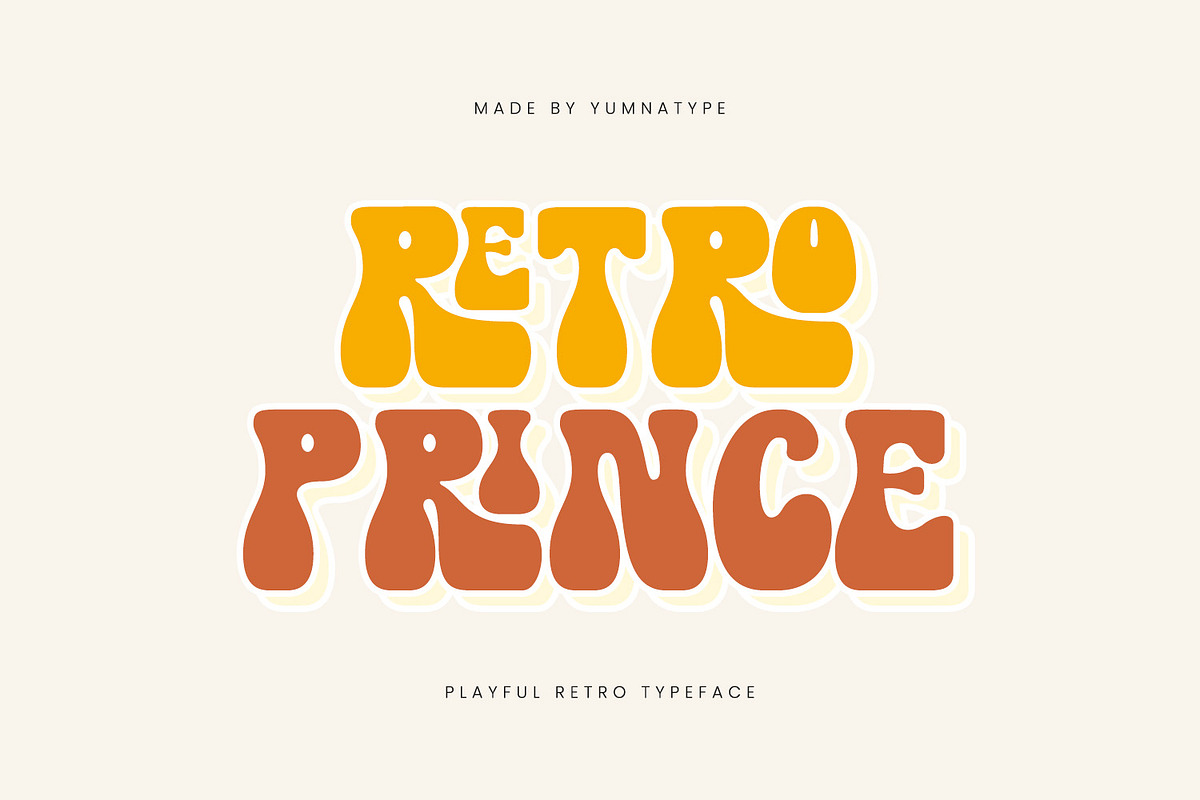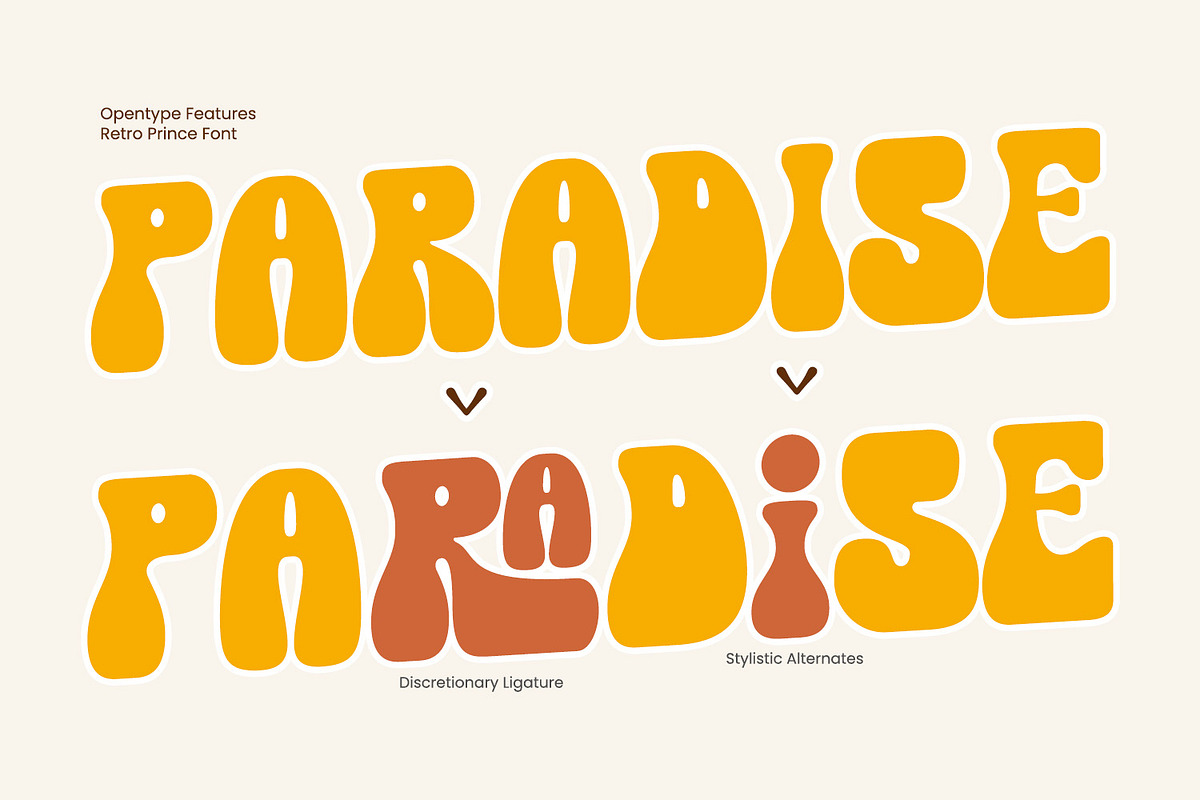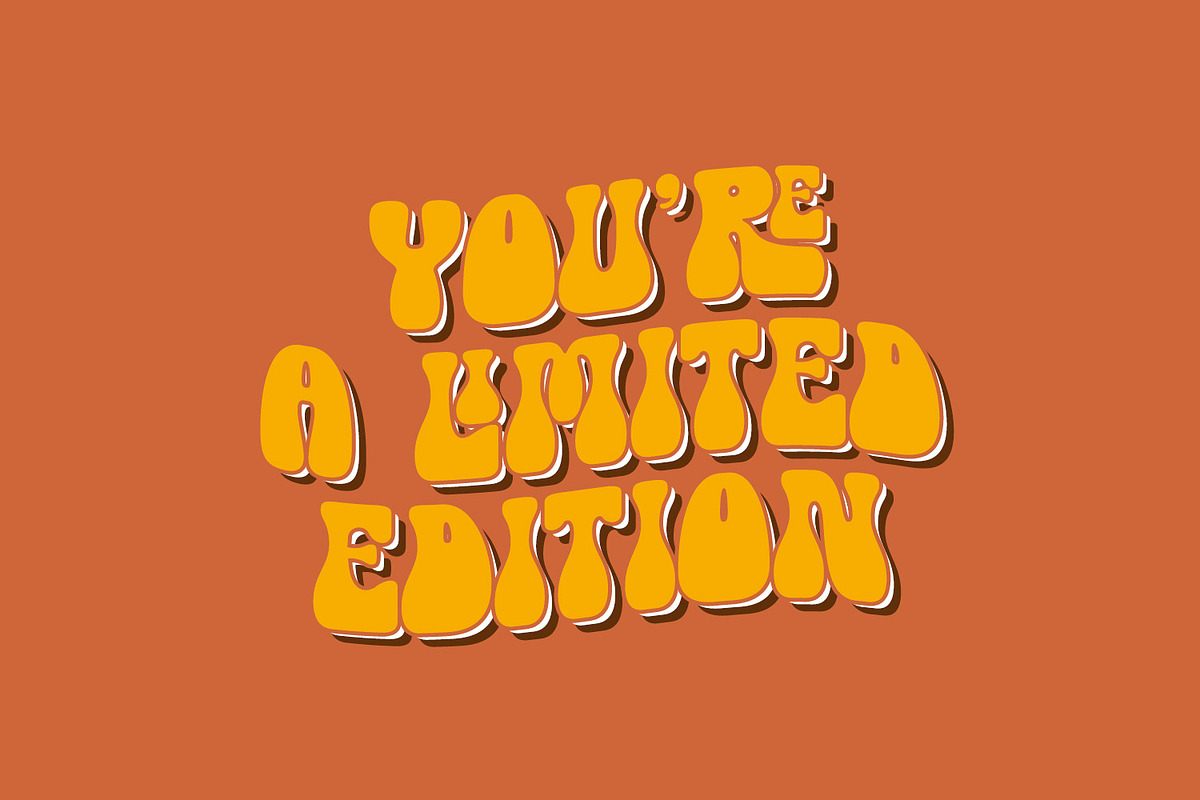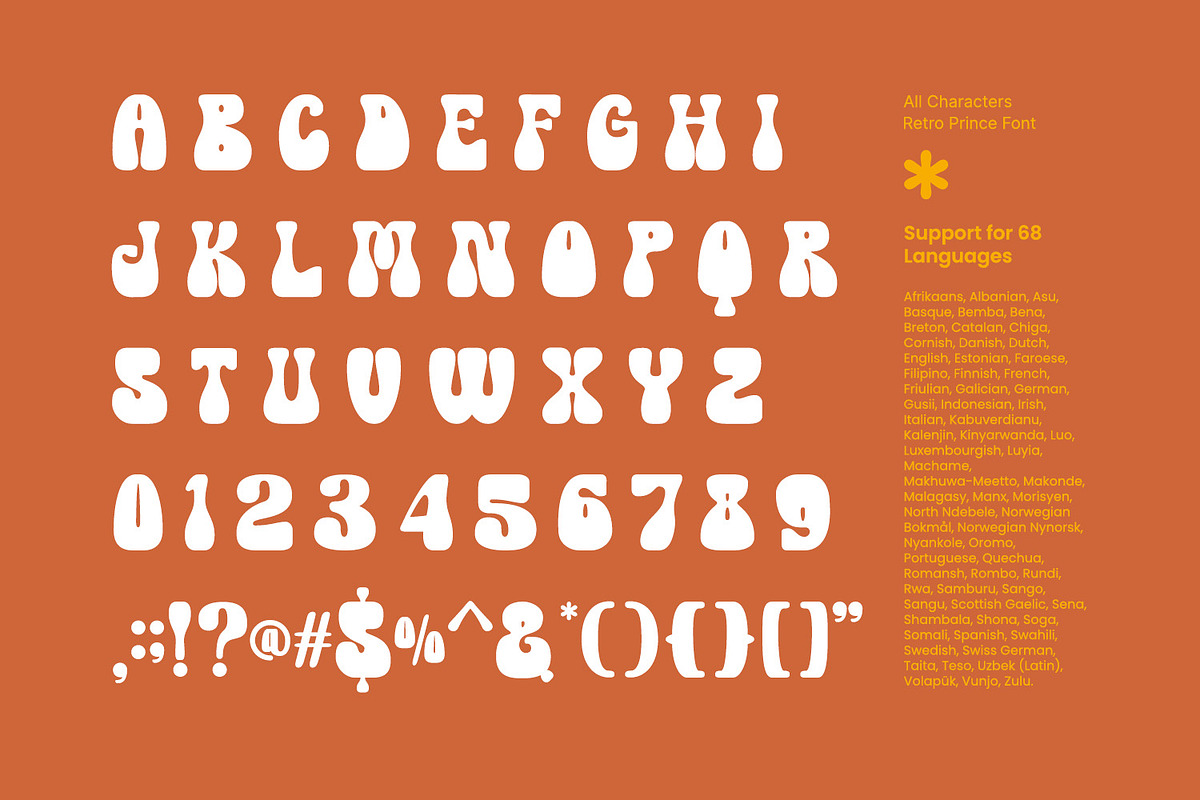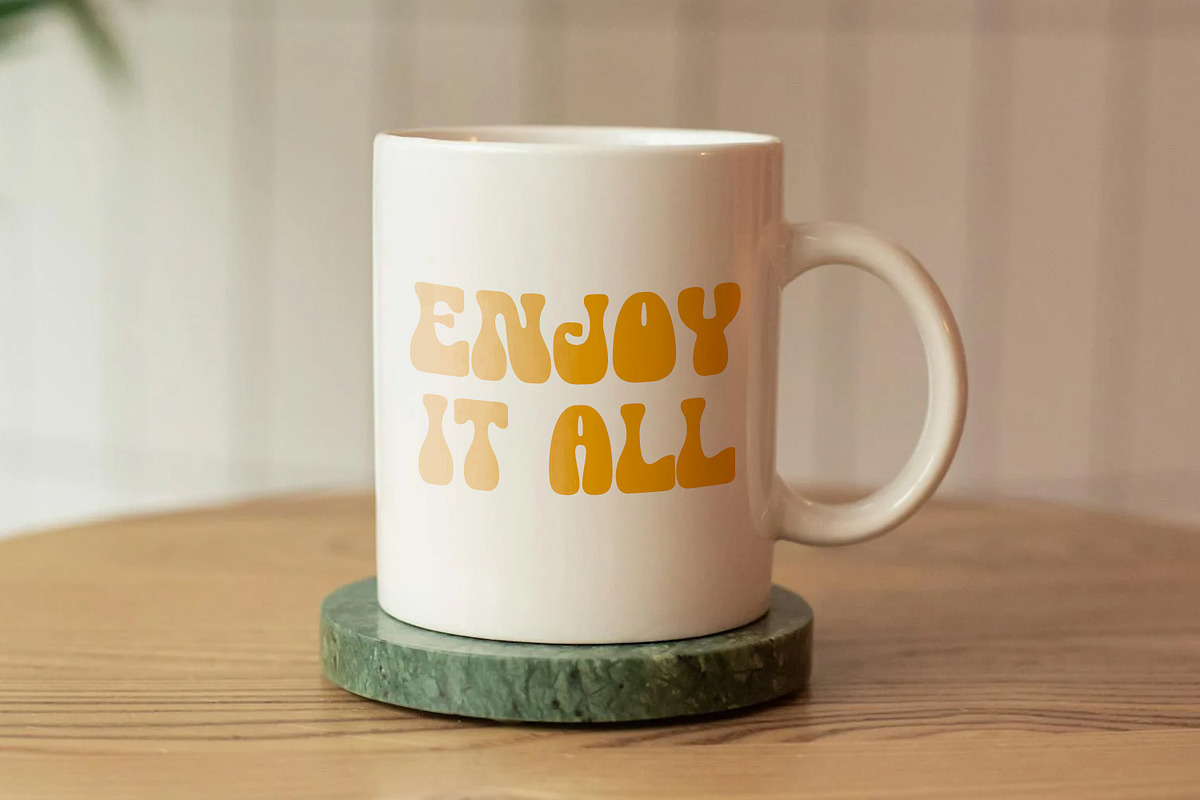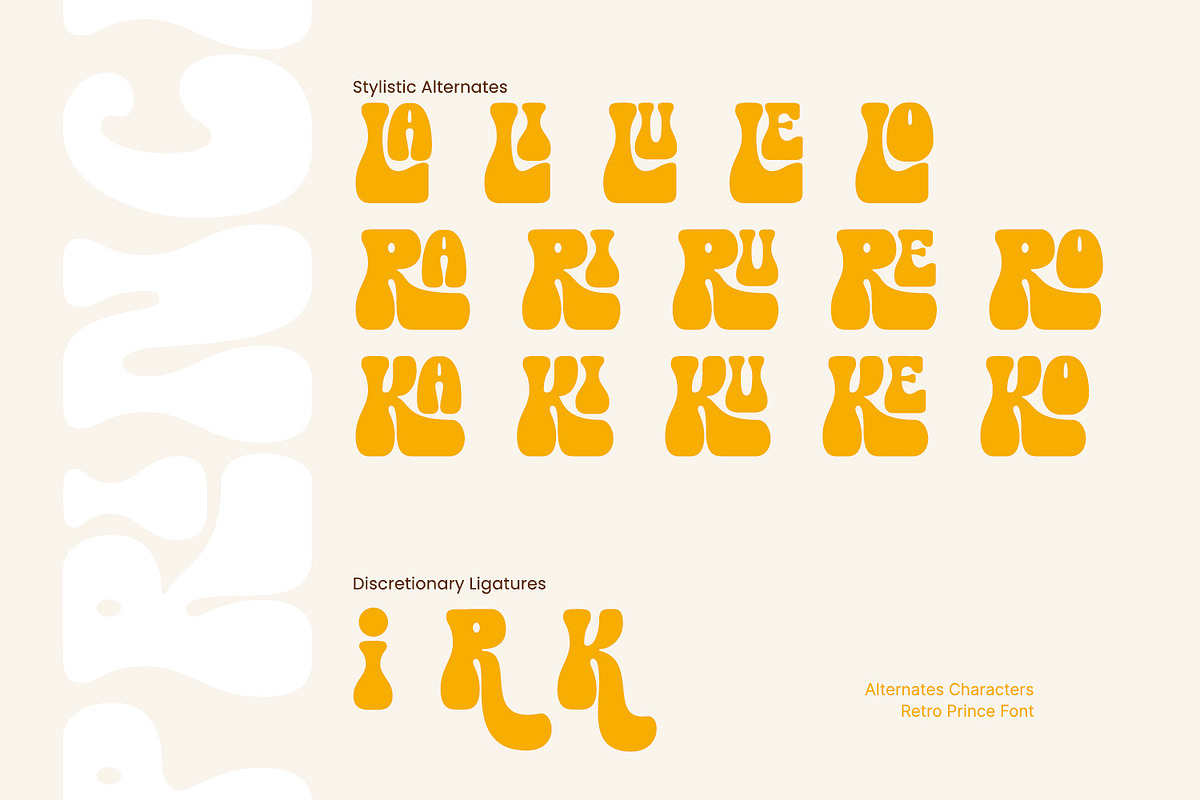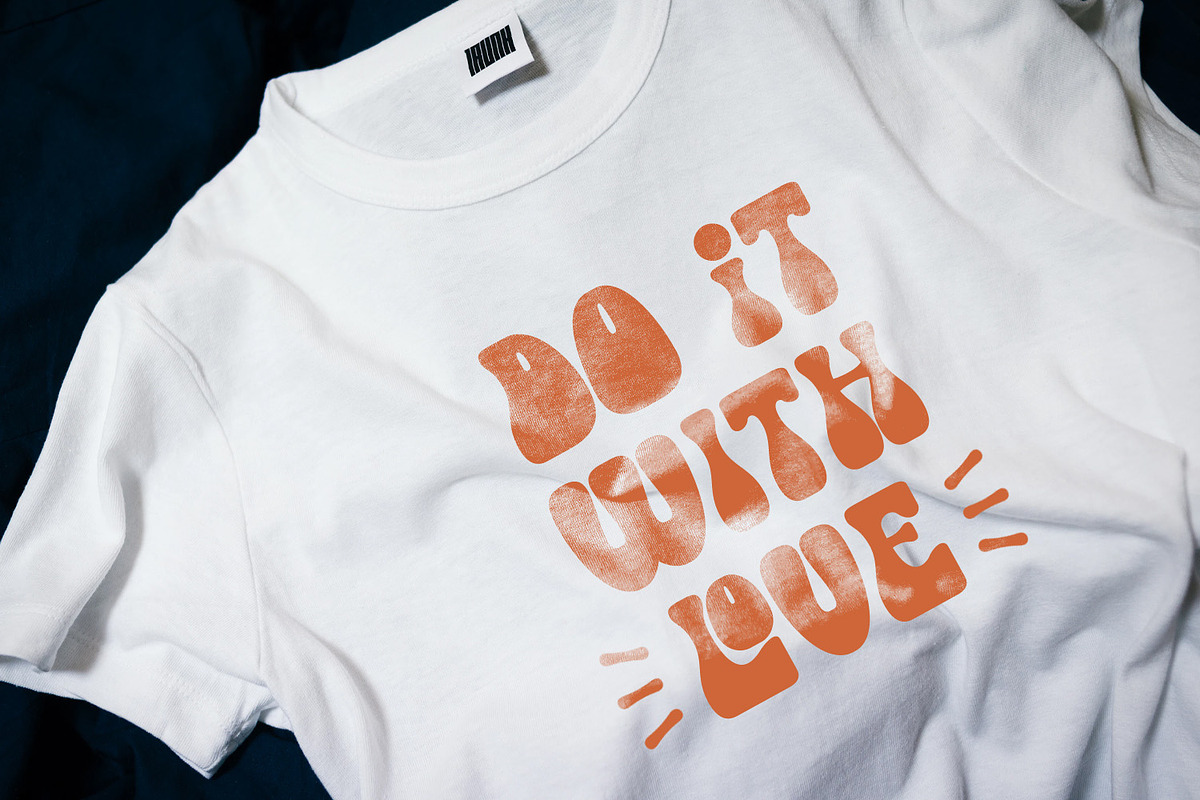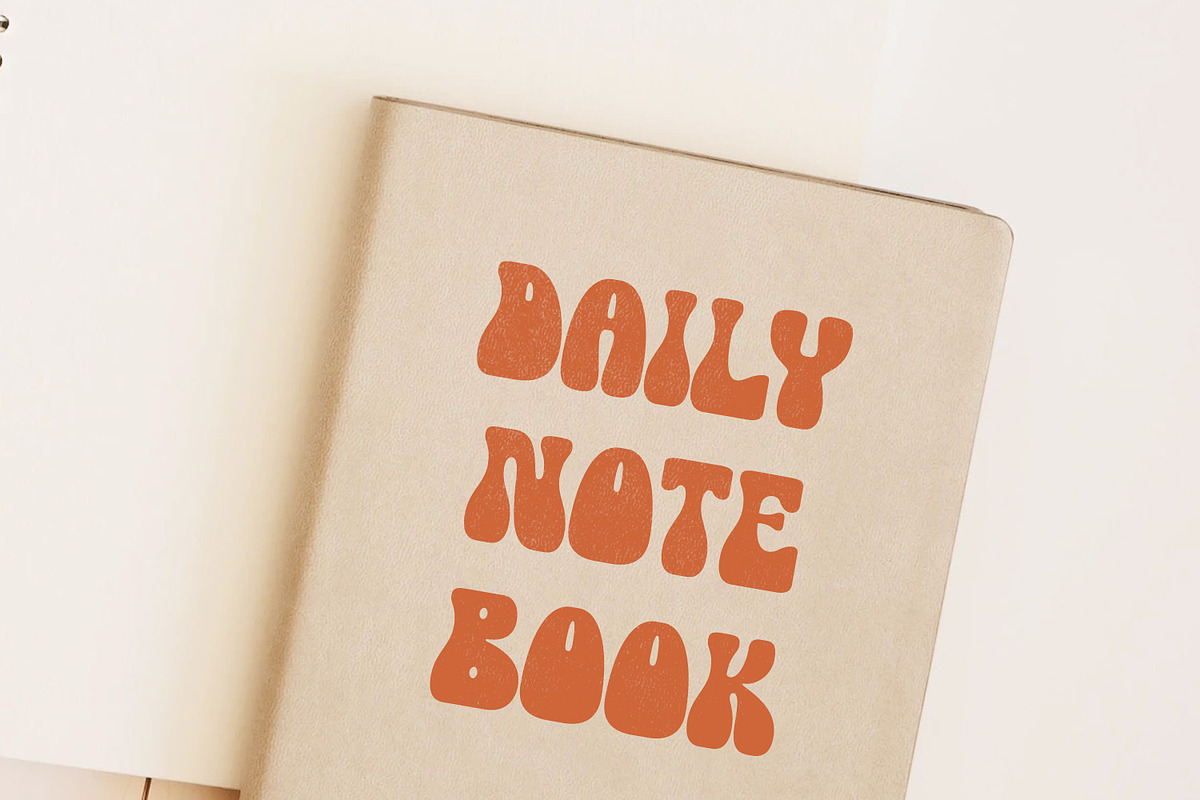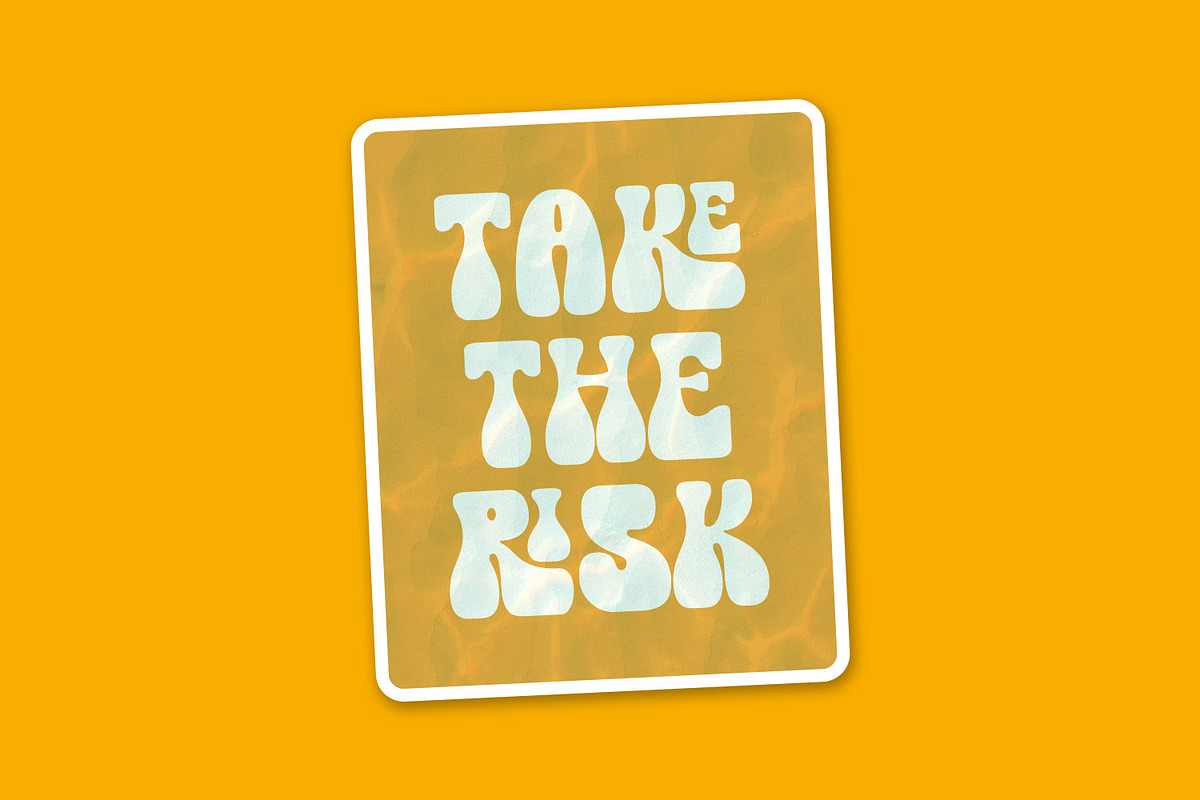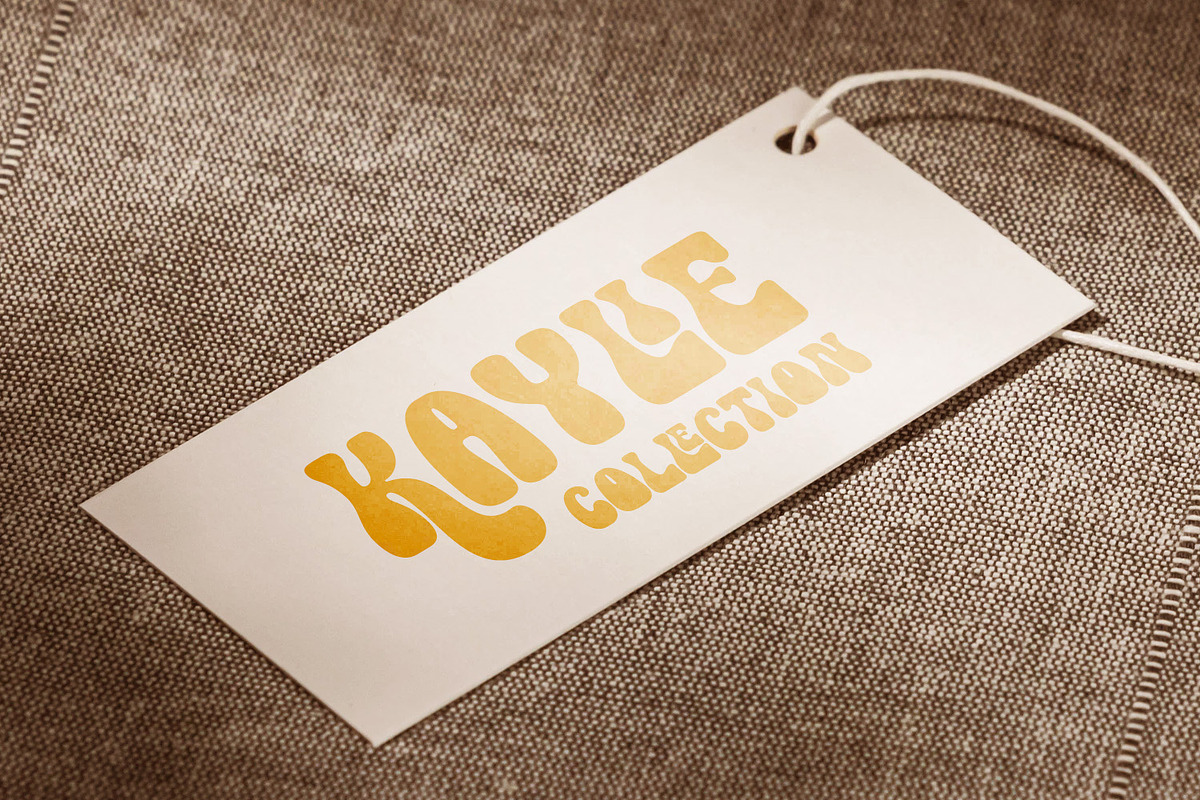
Retro Prince
Retro Prince is a charming display font that takes you on a journey back to the vibrant aesthetics of the retro era. Each letter in Retro Prince is meticulously designed with rounded shapes and uneven proportions, adding a dynamic quality to your text.
The playful style of the font evokes the carefree spirit of the retro era, while the non-straight outlines add a sense of quirkiness and character to the overall design. What sets Retro Prince apart is its playful and unconventional design, which adds a sense of fun and spontaneity to your text. In addition, enjoy the features here.
Retro Prince fits in headlines, logos, posters, flyers, branding materials, print media, editorial layouts, and many more designs. Find out more ways to use this font by taking a look at the font preview.